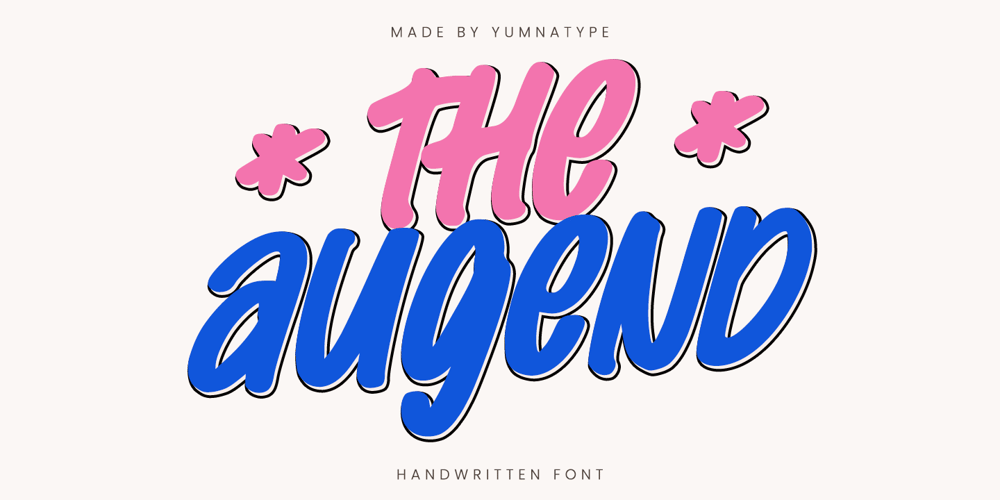
The Augend
The Augend font
The Augend Font Family was designed by Donis Miftahudin and published by Yumna Type. The Augend contains 2 styles and family package options. The Augend is a captivating handwritten font that brings a unique and personal touch. The thick weight of The Augend ensures that each character stands out with a strong presence. Despite its substantial weight, the font retains a sense of warmth and friendliness, thanks to its handwritten style.With low contrast between thick and thin strokes, The Augend maintains a consistent and harmonious look. This design enhances readability and gives the font a smooth, even flow that mimics natural handwriting. The uniformity of the strokes provides a clean and polished appearance. In addition, enjoy the features here.Features: Multilingual Supports PUA Encoded Numerals and Punctuations The Augend fits in headlines, logos, posters, flyers, branding materials, print media, editorial layouts, and many more designs. Find out more ways to use this font by taking a look at the font preview.Thanks for purchasing our fonts. Hopefully, you have a great time using our font. Feel free to contact us anytime for further information or when you have trouble with the font. Thanks a lot and happy designing.